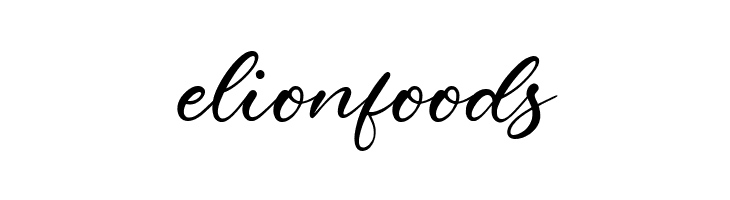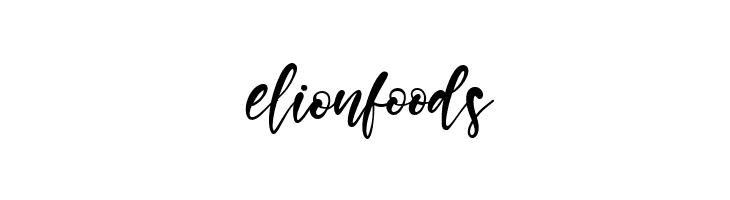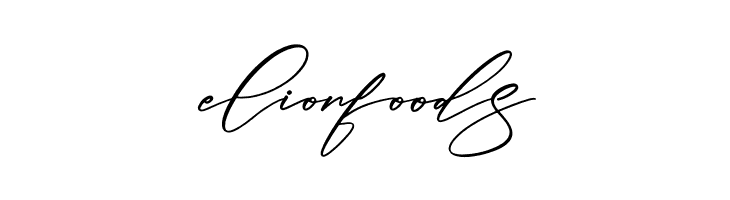
A sophisticated script font with flowing, cursive characters and medium contrast.
A lively and elegant script font with flowing, cursive letterforms.
A playful, handwritten font with dynamic strokes and a whimsical flair.
A bold, cursive handwritten font with dynamic and playful strokes.
An elegant, cursive font with fluid, interconnected strokes.